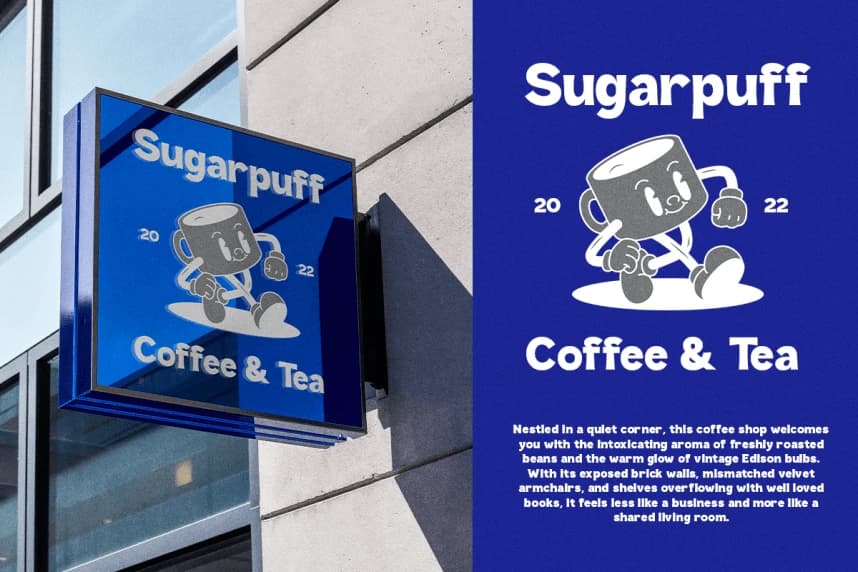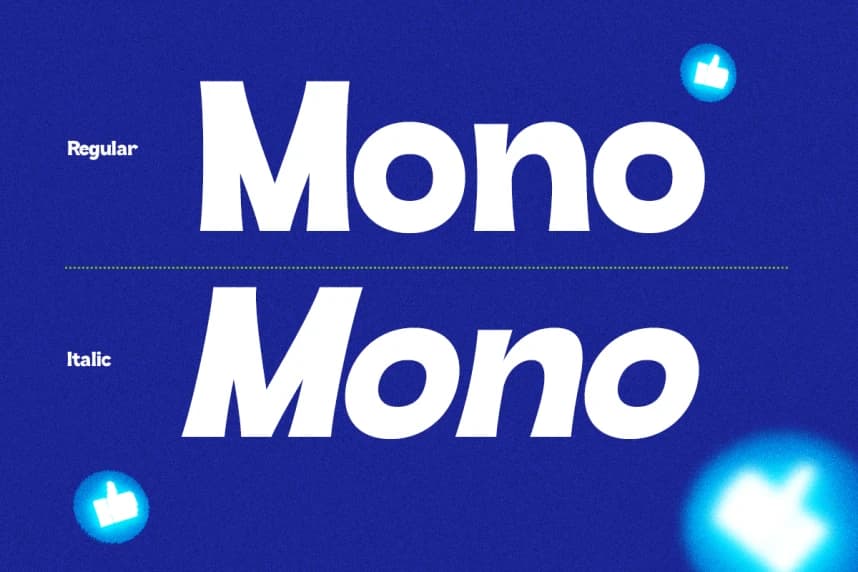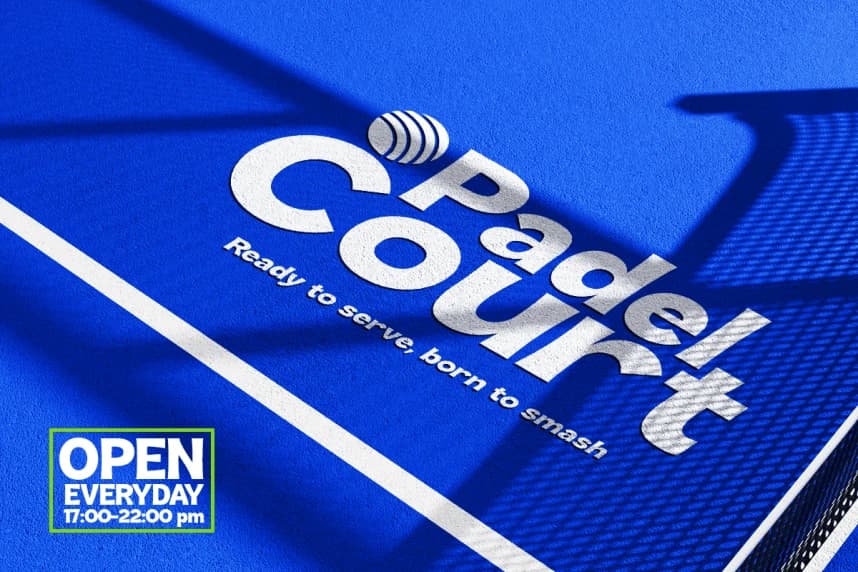
Galnero Font
Galnero Font is a bold display sans font designed to create strong visual impact with a clean and modern aesthetic. Featuring solid letterforms and smooth curves, Galnero delivers a confident and contemporary style that instantly stands out. Its bold structure ensures excellent readability while maintaining a distinctive and eye-catching presence.